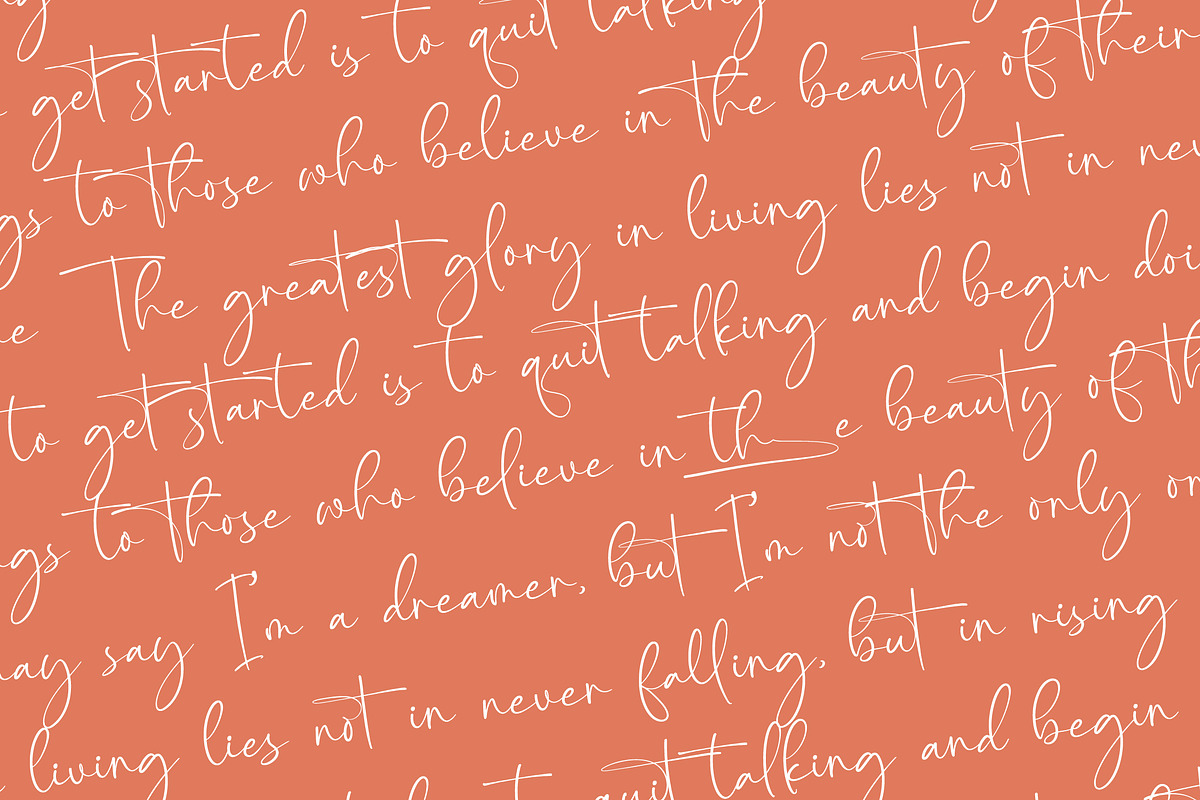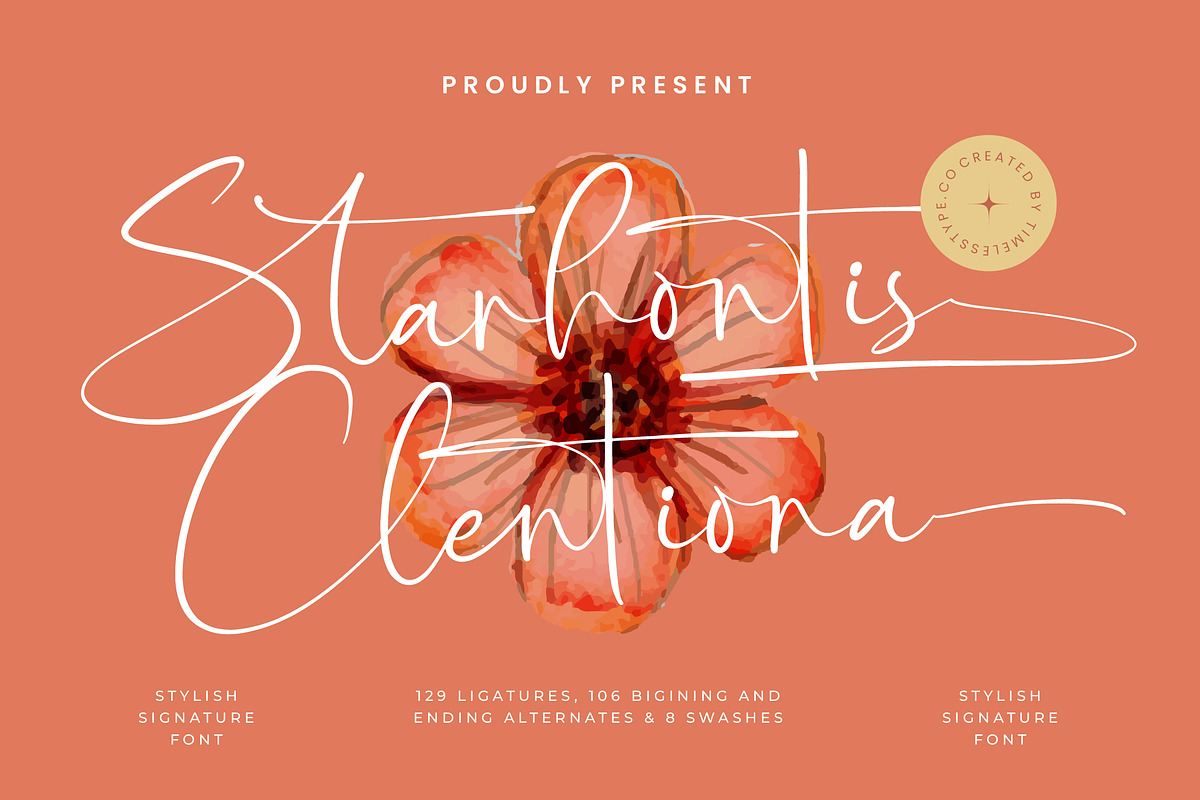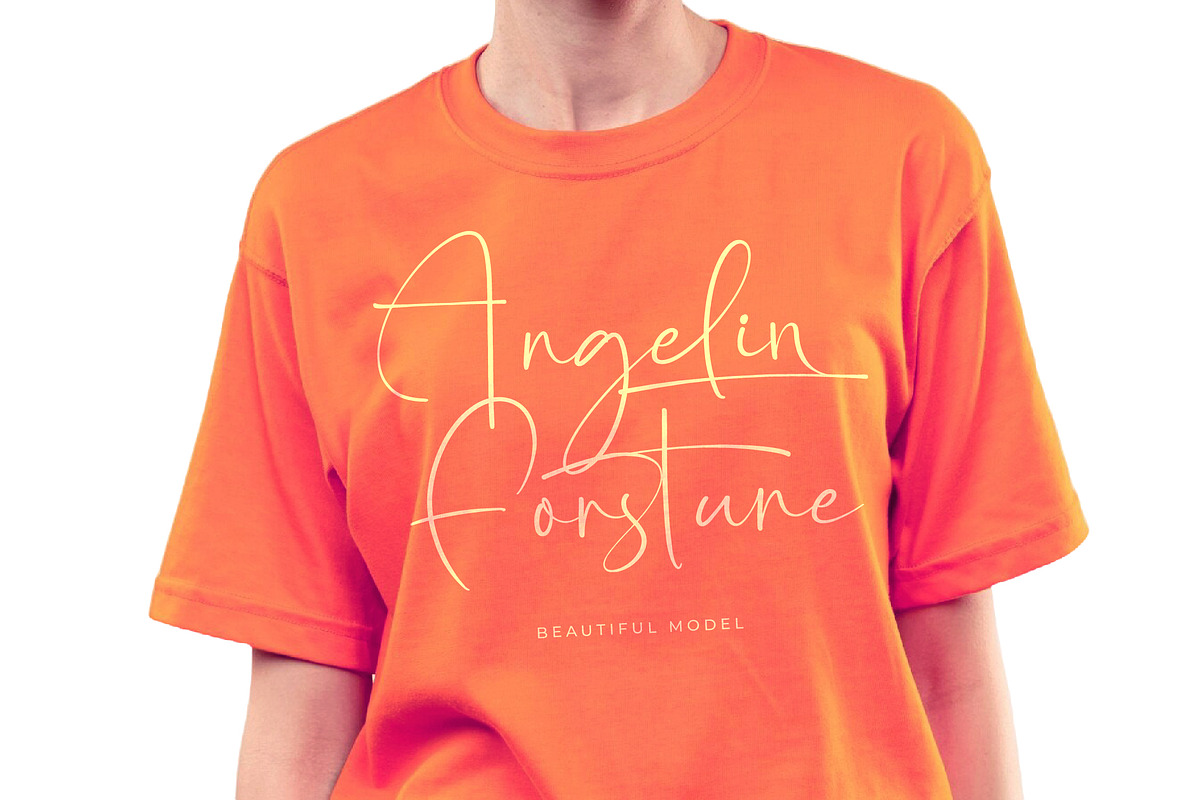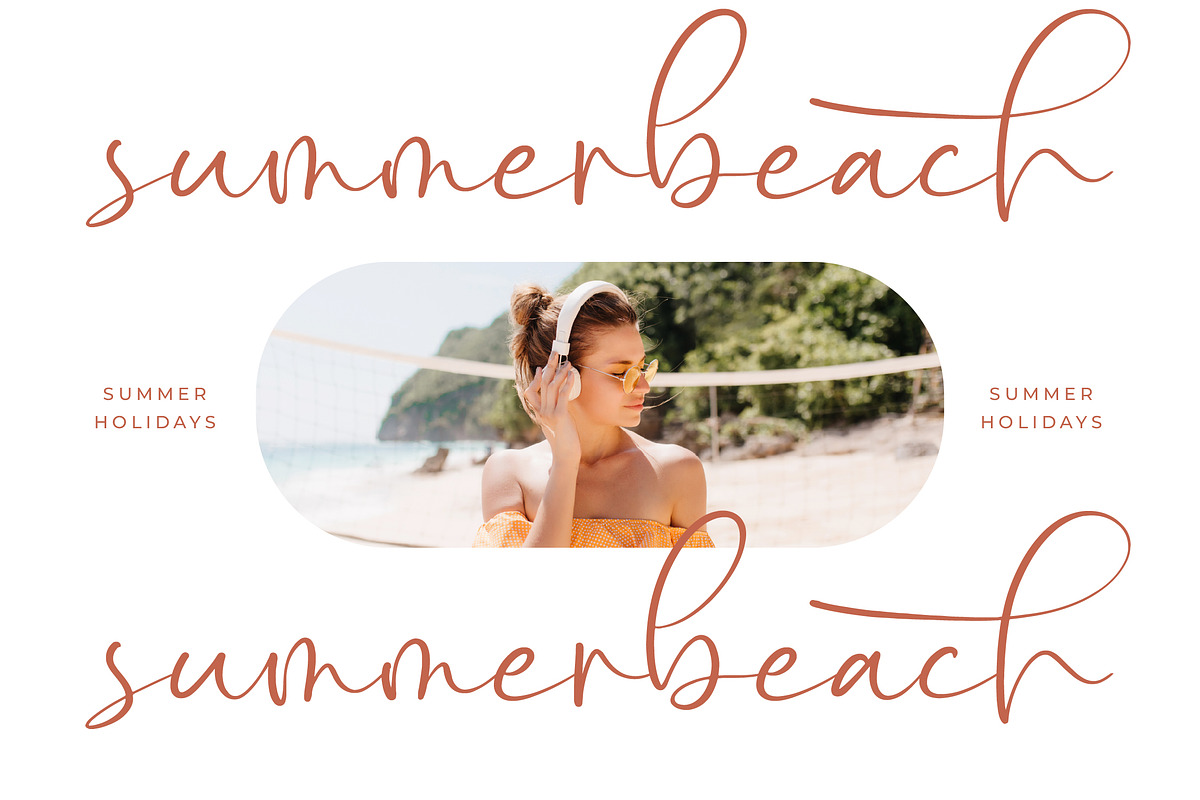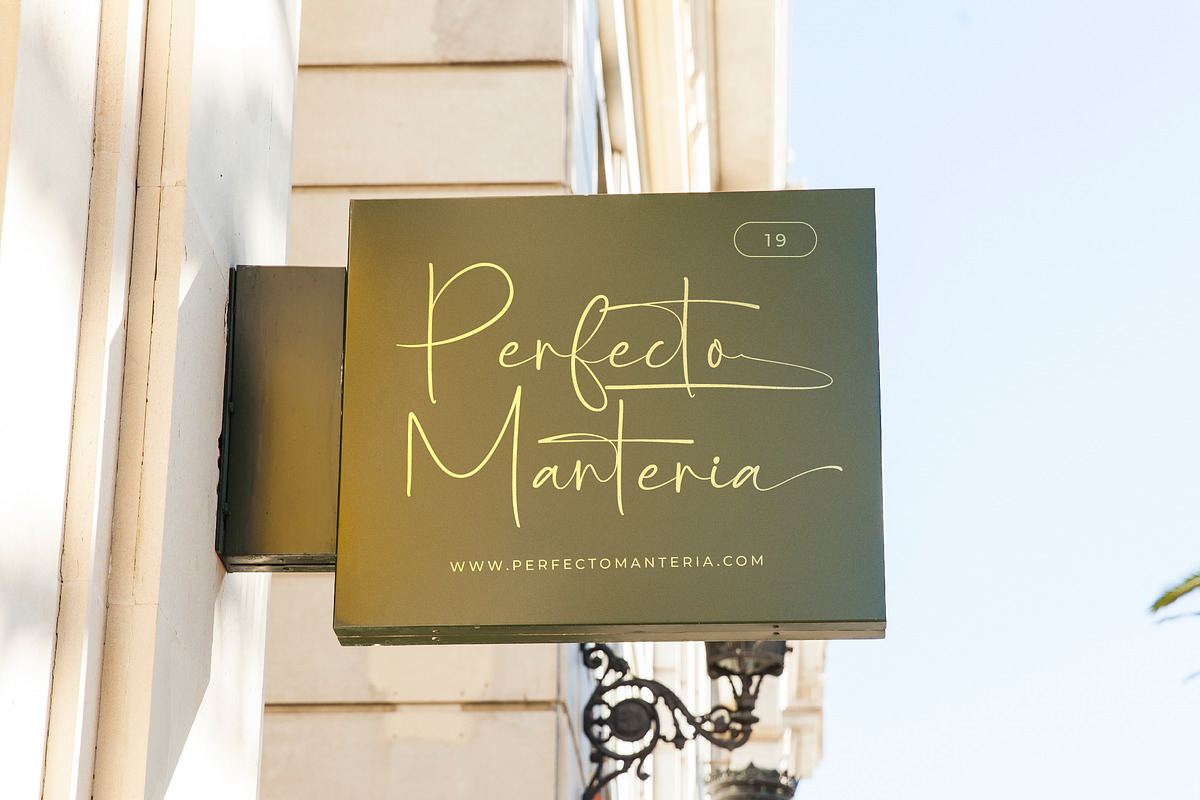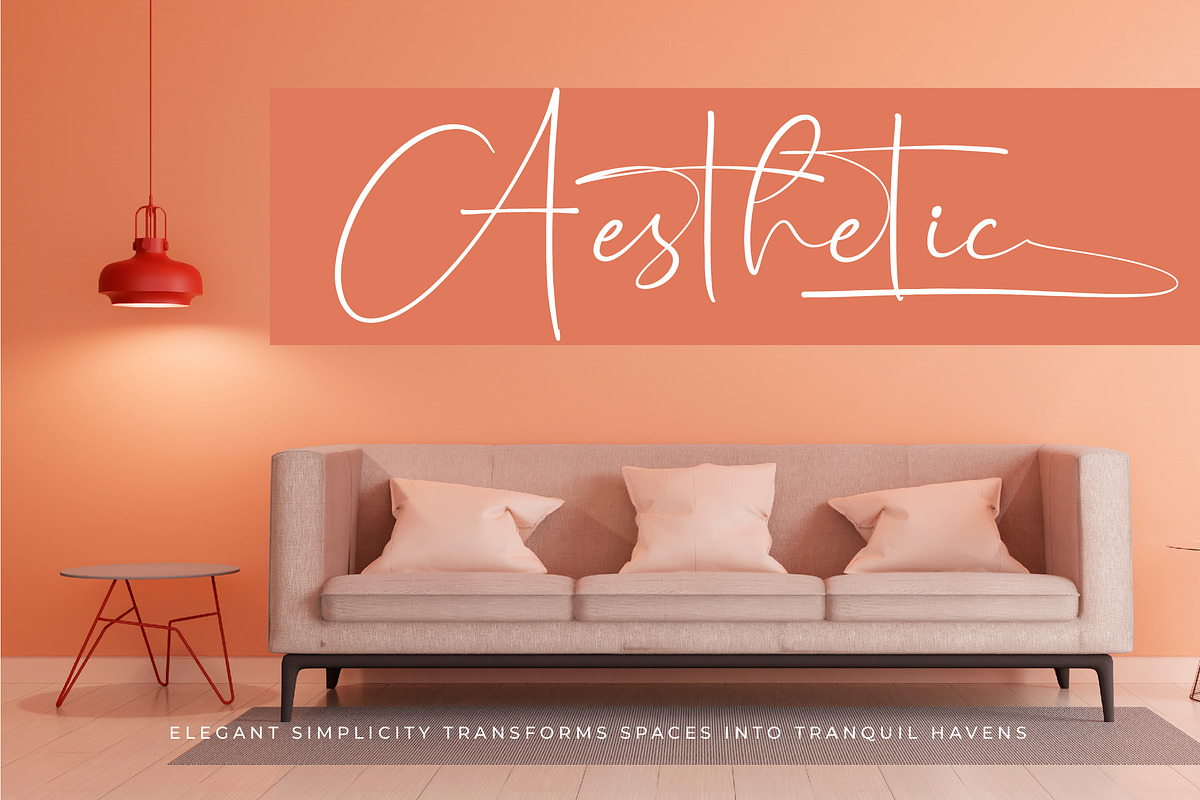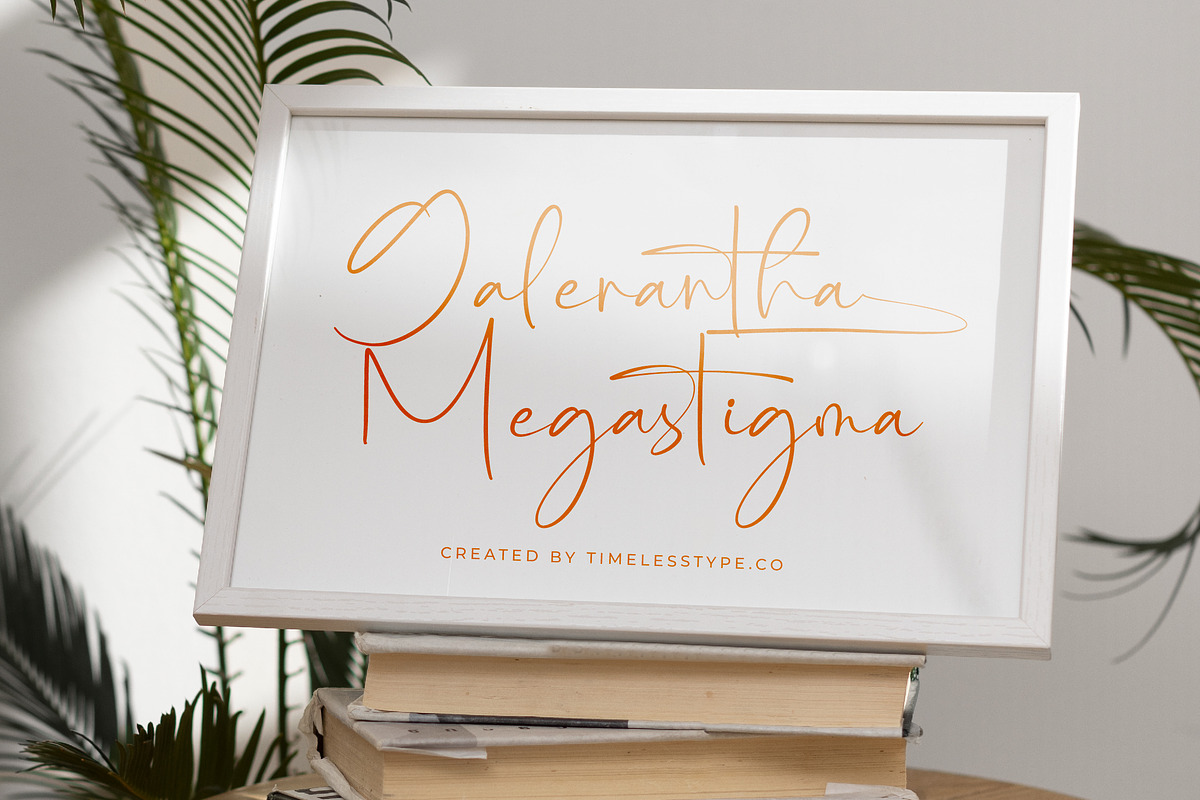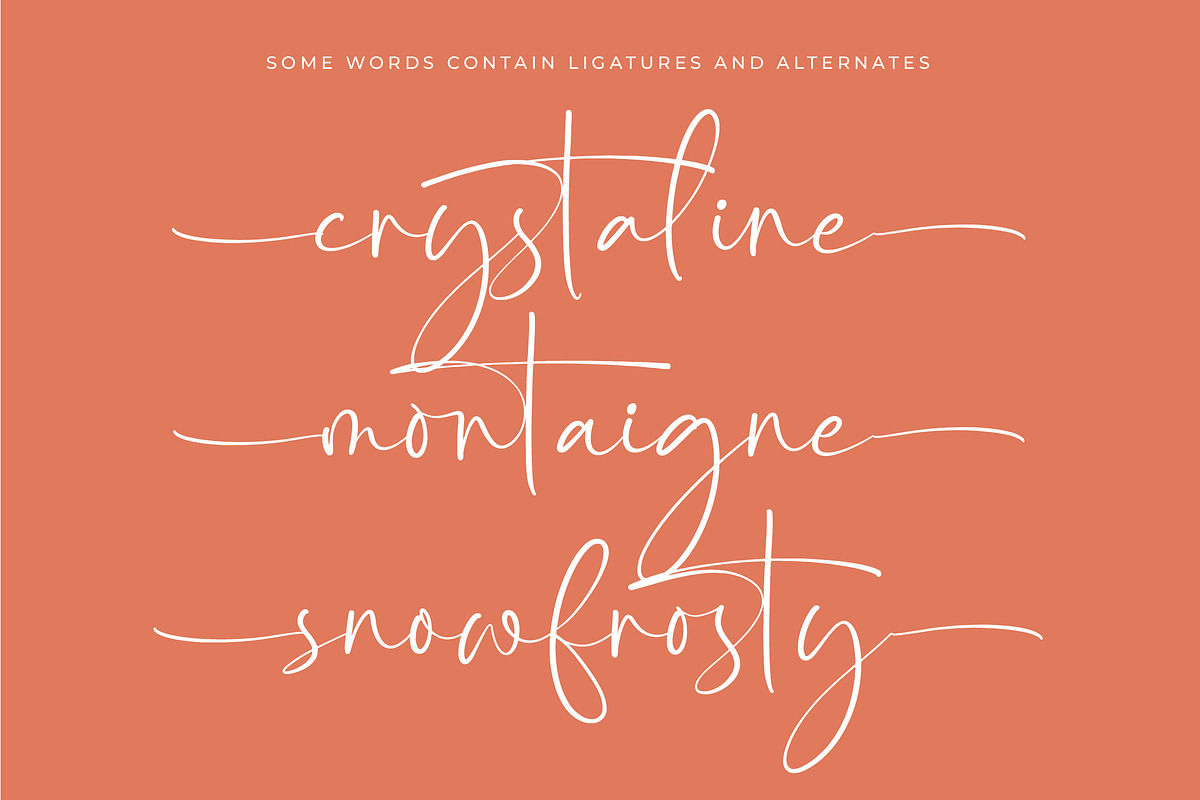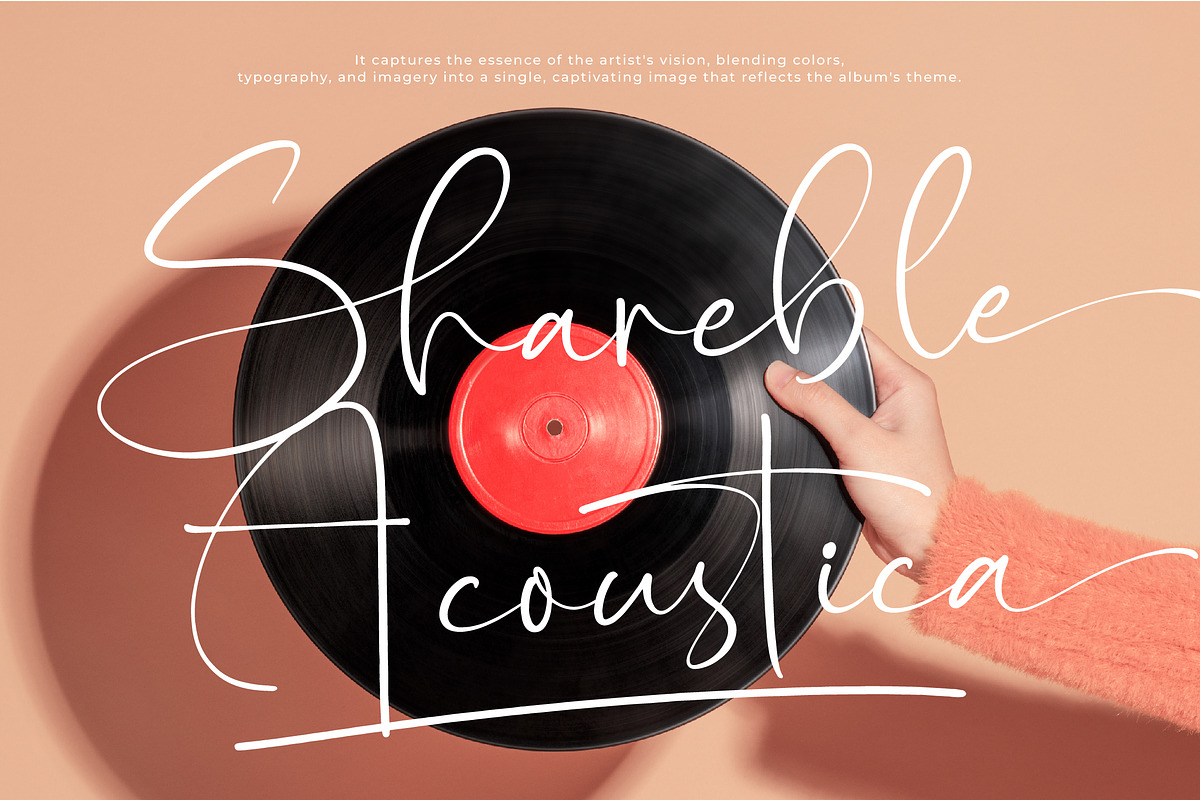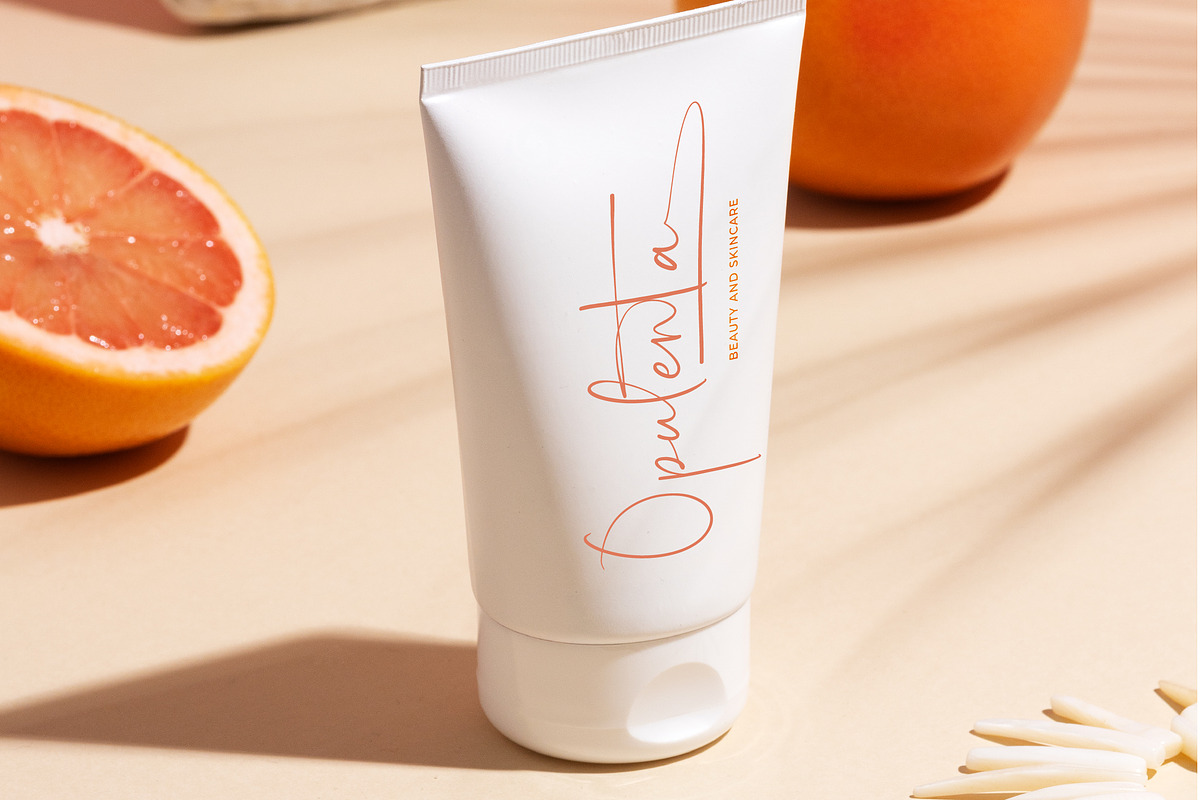
Starhontis Clentiona Stylish Font
Starhontis Clentiona - Stylish Signature Font , from Stylishtype.Co , Suitable for any projects such as: logos, branding projects, homeware designs, product packaging, mugs, quotes, posters, shopping bags, t-shirts, book covers, name card, invitation cards, greeting cards, label, photography, watermark, special events, and all your other luxury and beautiful projects that need a Luxury Script taste.
- 129 Ligature 106 Alternates & 8 Swashes